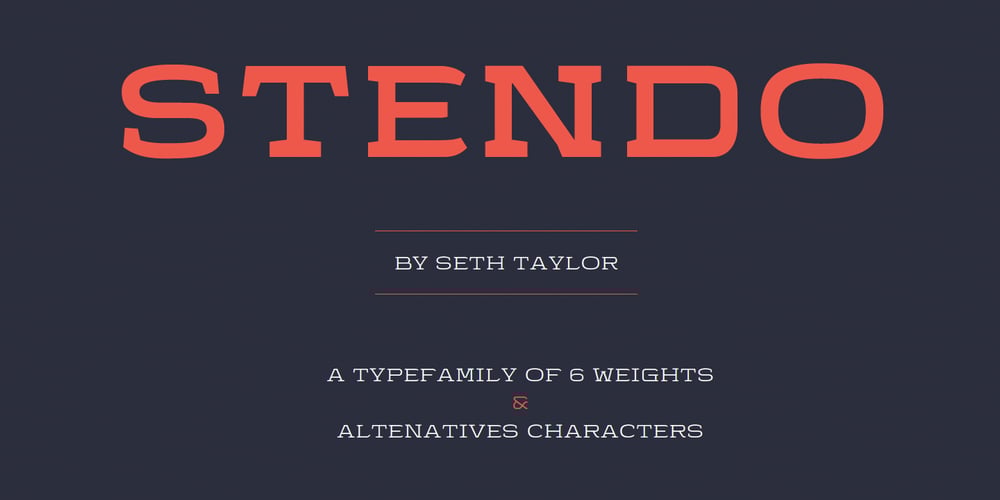
Stendo Font Family was designed by Seth Taylor and published by Stypeface. Stendo contains 9 styles and family package options. The world needs a wide slab font that doesn’t make us feel like putting on a pair of cowboy chaps. The Stendo Family boldly declares that we can be wide without being clumsy. Smoothly wide. Like a classy smile. The serifs perform a unique function among capitals; most capitals have serifs that carry the eye horizontally, with Stendo, the serifs still carry the eye horizontal but they also activate the negative space which creates a smoother and less rigid look.